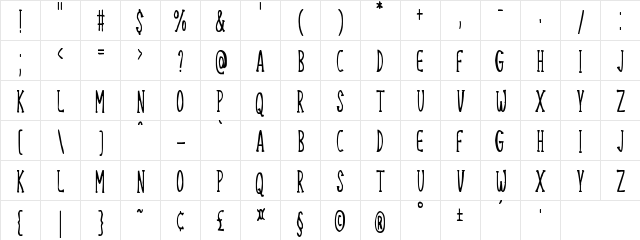
Welcome Everyday Regular
Design Context for Welcome Everyday Typeface
Welcome Everyday takes a measured approach to typography — its balanced proportions and neutral character make it a reliable workhorse for both digital and print work.